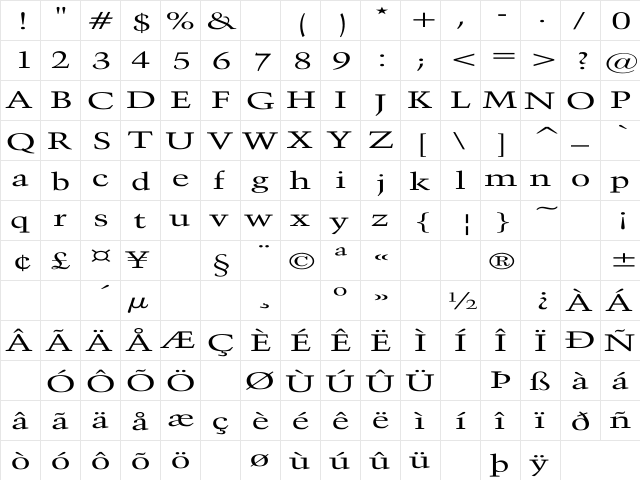
Activa Extended Regular
Design Context for Activa Extended Typeface
Activa Extended offers clean, dependable letterforms without strong stylistic allegiance, making it a practical choice for designers who need flexibility.
Pro Tip: Pair Activa Extended with a font of contrasting weight or personality to build a more expressive typographic hierarchy.